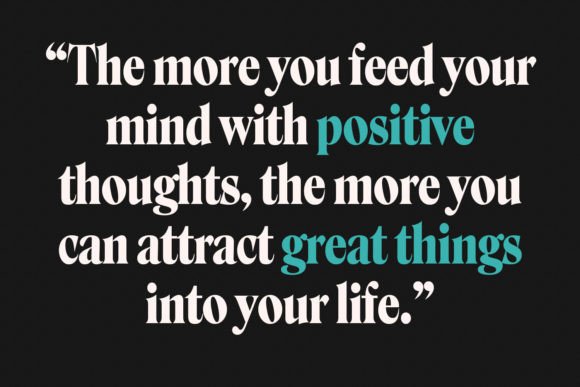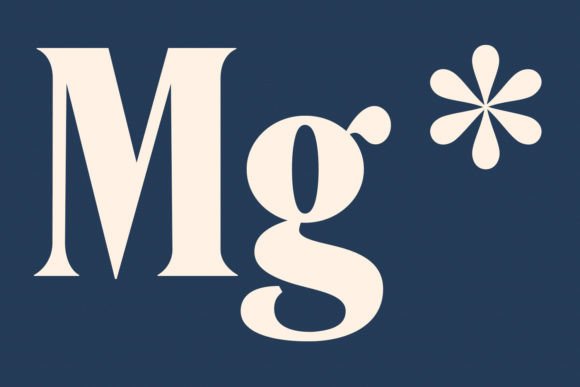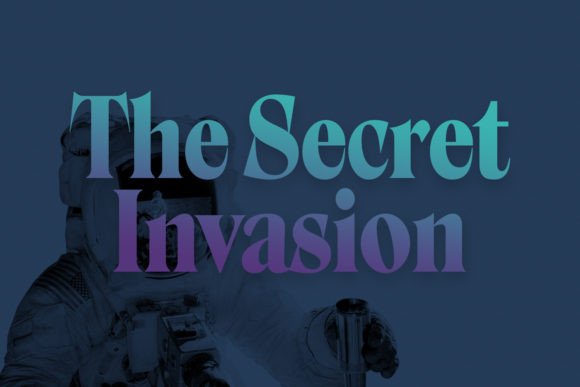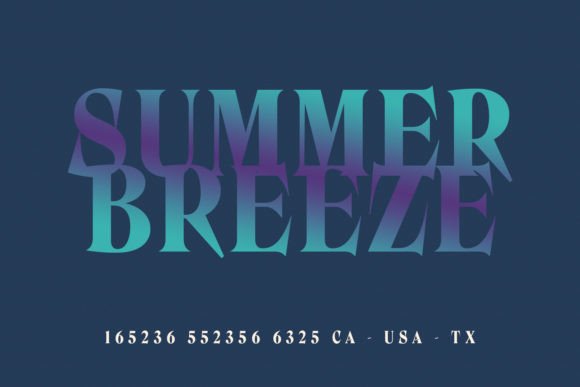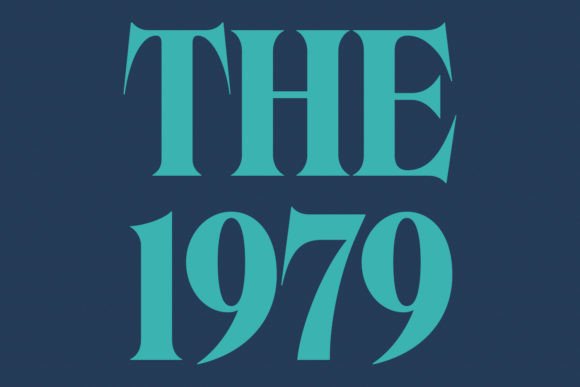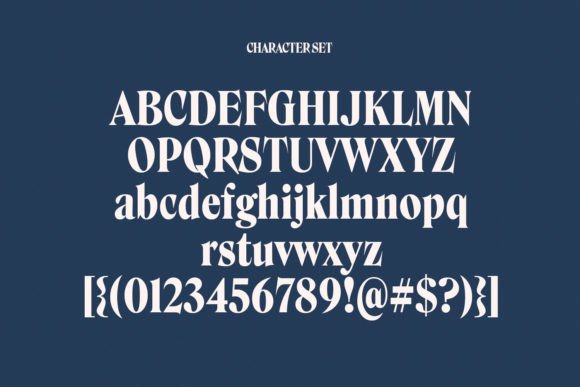
Introduction to Mariget Font
Have you ever been stuck on a creative project, desperately searching for the perfect font to elevate your design? I’m sure we’ve all been there. For designers, finding the right font can be the difference between a mediocre design and a truly stunning one. And that’s where the Mariget Font comes in – a modern, high-contrast condensed serif display font that’s sure to take your creative work to the next level.
With its bold stroke, fun character, and subtle ligatures, Mariget Font is the perfect addition to any design resource. Whether you’re working on a logo design, social media campaign, or book title, this versatile font is sure to impress. And with support for over 100 languages, you can use it to connect with a global audience in a way that feels authentic and transparent.
Key Features of Mariget Font
- High-quality design for creative projects, including graphic design, digital art, and publishing
- Unique, hand-drawn design with a transparent background, allowing for easy layering and customization
- Includes a range of characters, including uppercase and lowercase letters, numbers, and special symbols, making it a versatile design resource
- Perfect for use in digital and print media, including logos, branding, and advertising materials
- Comes in a single font style, with a bold and playful aesthetic that’s ideal for creative and artistic projects
Honest Review: Mariget Font
I recently came across the Mariget Font and was excited to dive in and see what it had to offer. As a designer, I’m always on the lookout for high-quality fonts that can elevate my creative projects.
Here are some things that work well about the Mariget Font:
- ✨ Elegant and refined design aesthetic
- ✨ Highly customizable with a range of weights and styles
- ✨ Great for use in digital design projects, such as apps and websites
- ⚠️ Limited support for non-English languages
- ⚠️ Not ideal for use in print projects due to its digital design focus
Overall, I’m impressed with the Mariget Font and would definitely recommend it as a design resource for designers working on creative projects. While it may have some limitations, its high quality and customizability make it a valuable addition to any design library.
Tips for Getting the Most Out of Mariget Font
To get the most out of the Mariget Font, be sure to use it in conjunction with a transparent background. This will allow you to layer the font over other design elements without any issues. You can also experiment with different font sizes and styles to add visual interest to your designs.
Common Use Cases for Mariget Font
The Mariget Font is a versatile design resource that can be used in a variety of creative projects. Some common use cases include:
- Documents
- Posters